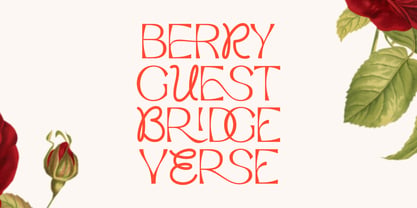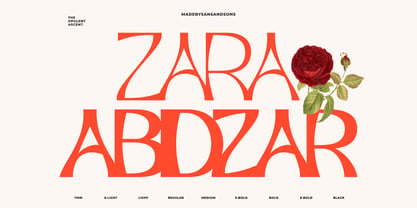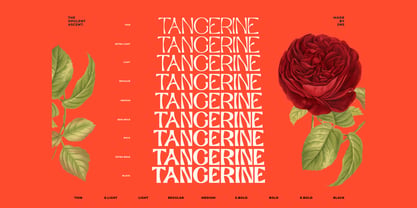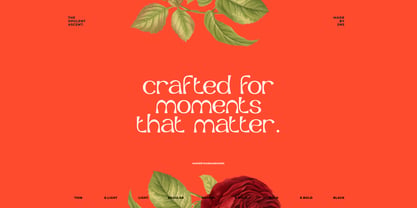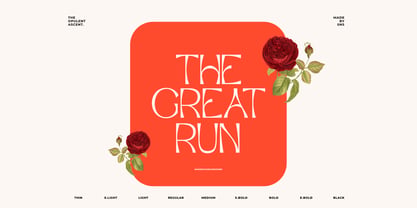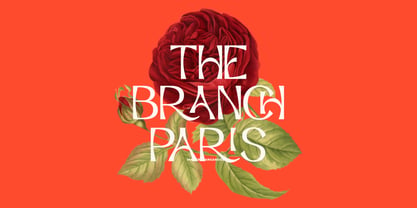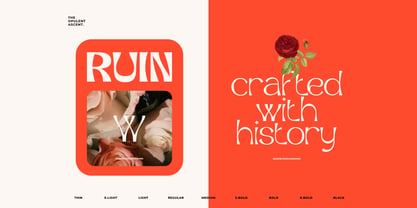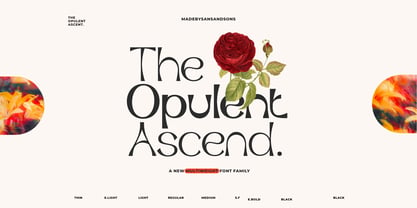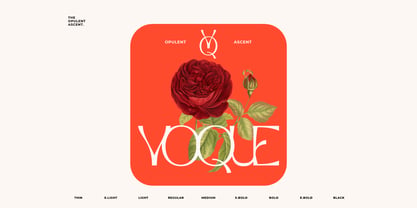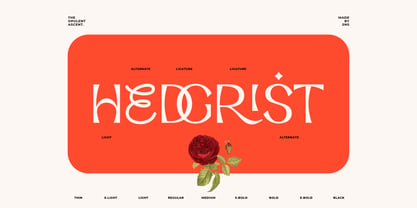
Opulent Ascend
by Sans And Sons
The Opulent Ascend Font Family was designed by Angga Suwista and published by Sans And Sons. Opulent Ascend contains 9 styles and family package options. More about this family
Introducing Opulent Ascend — an elegant sans serif font family designed to elevate your visual storytelling.
With 9 precisely balanced weights ranging from delicate Thin to commanding Black, Opulent Ascend adapts to everything from minimalist branding to bold editorial layouts. This typeface brings together clean geometry with a hint of warmth — creating a professional yet approachable tone.
Whether you're crafting a brand that feels luxurious, a layout that needs clean readability, or a modern product identityOpulent Ascend rises to meet the moment.
Designers: Angga Suwista
Foundry: Sans And Sons